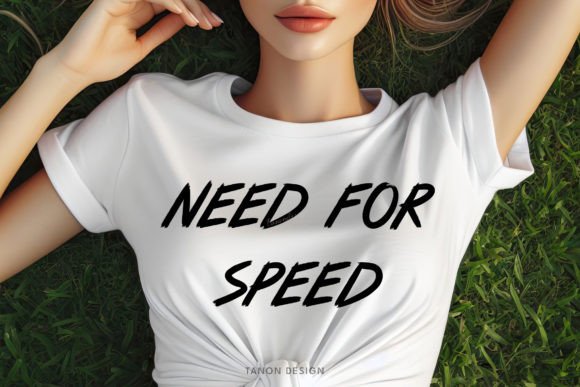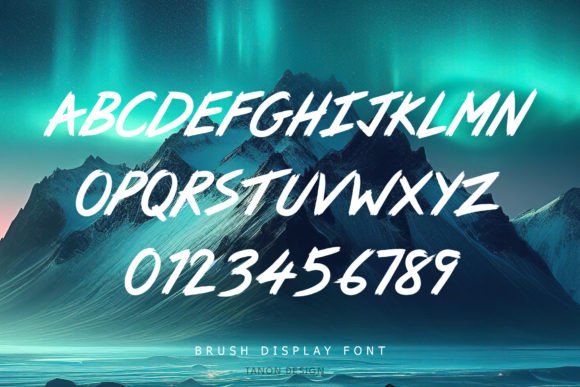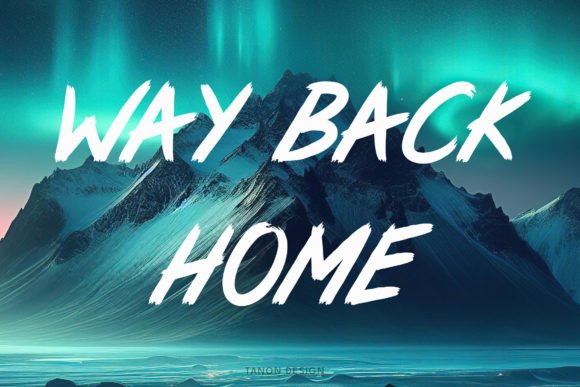
Introducing Back Street Font: Your New Design BFF
Ah, the elusive perfect font. You know, that one that makes your design project go from meh to mesmerizing. I’ve been there, done that, and got the t-shirt (which, coincidentally, I designed using the amazing Back Street font). It was a typical Wednesday evening, and I was working on a last-minute t-shirt design for a client. The deadline was looming, and I was stuck on finding the right font. That’s when I stumbled upon Back Street, a beautiful street brush font that instantly captured the vibe I was going for.
An Honest Review of Back Street Font
So, what makes Back Street so special? Let’s dive into the good stuff and, well, a few quirks.
- ✨ Unique Street Style: Back Street has this authentic street brush feel that adds a cool, casual vibe to any design.
- ✅ Versatile: Whether you’re working on t-shirt designs, mug designs, digital art, crafts, or greeting cards, this font fits right in.
- 💡 Ease of Use: It’s incredibly user-friendly, even if you’re not a pro at handling fonts.
- 🎨 Great for Pairing: It pairs well with a variety of fonts, giving you tons of flexibility in your designs.
Now, no font is perfect, and Back Street isn’t an exception. Here are a few things to keep in mind:
- 🤔 Not Ideal for Small Text: Due to its brush nature, Back Street can get a bit fuzzy when scaled down. It’s best used for headlines or medium to large text sizes.
- ⚠️ Limited Formal Use: This font is casual at heart, so it might not be your go-to for super formal projects.
The Backstory of Back Street Font
The story behind Back Street font is one of creative inspiration. The designer, inspired by the vibrant streets of urban cities, aimed to capture the raw energy and character of street art in a typeface. Through countless hours of sketching and digital refinement, Back Street was born — a font that’s as much about personality as it is about readability.
| Font Name | Back Street Font |
| Author | tanondesign |
| Is Back Street suitable for professional branding? | While Back Street has a professional look, its casual vibe makes it best suited for projects that require a laid-back feel. For more formal branding, consider a serif or clean sans-serif font. |
| Does Back Street support OpenType features? | Yes, Back Street includes OpenType features such as stylistic alternates and glyphs, allowing for a high degree of customization in your designs. |
In conclusion, Back Street font is a versatile and stylish addition to any designer’s toolkit. Its unique street brush style, ease of use, and compatibility with various design platforms make it a go-to for creative projects. Whether you’re designing t-shirts, crafting digital art, or creating engaging content, Back Street is sure to bring a fresh and exciting vibe to your work.